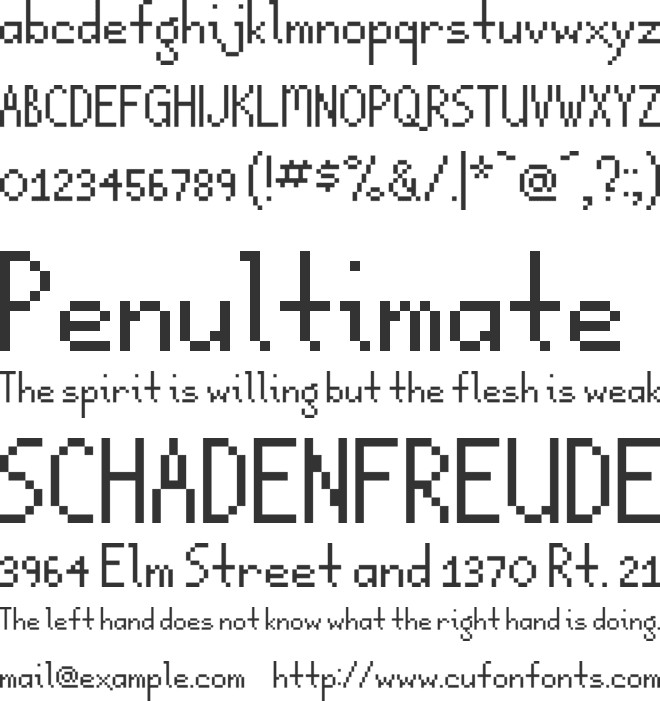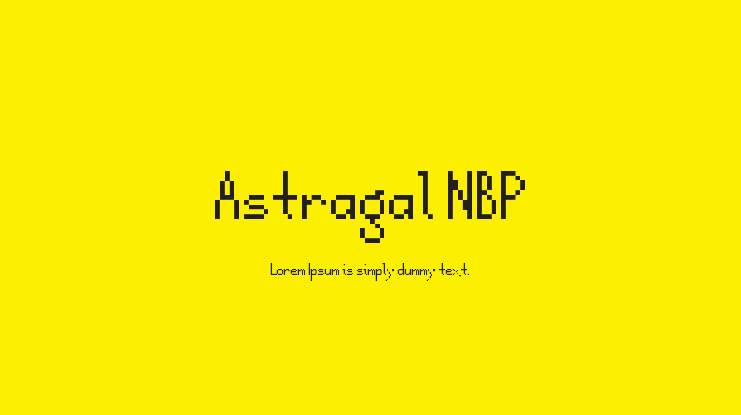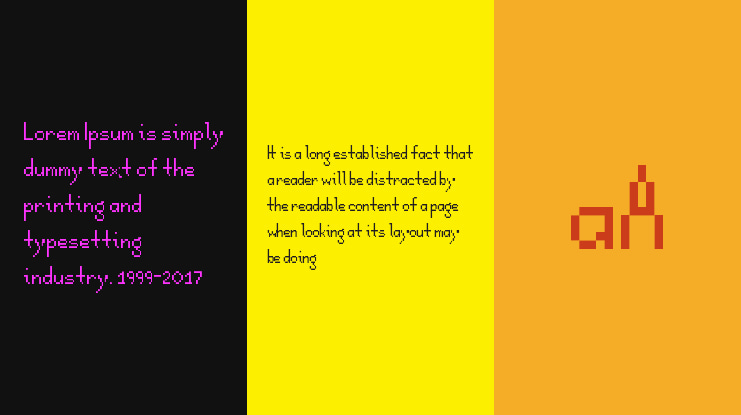
Astragal NBP Font
Nate Halley
Hermann Zapf on Nintendo, really. A pixel font designed like a humanist sans serif. Numbers are slightly smaller than the uppercase letters just because I hadn't made them that way before :P